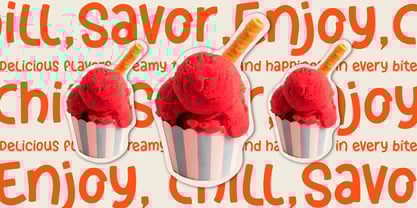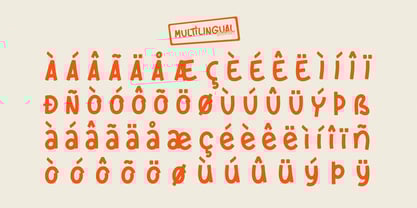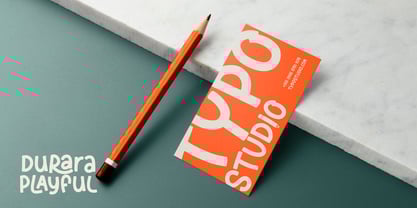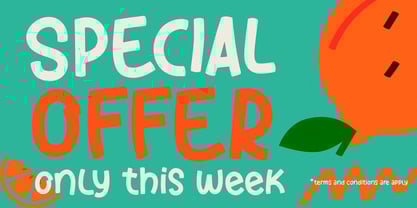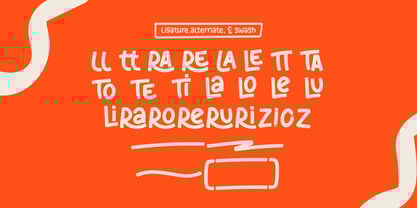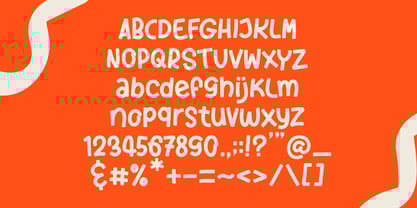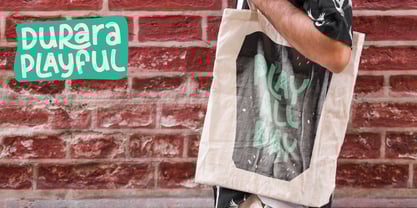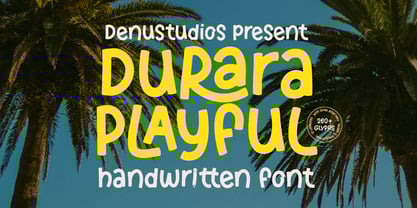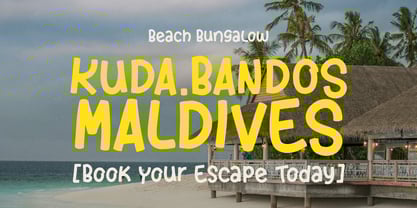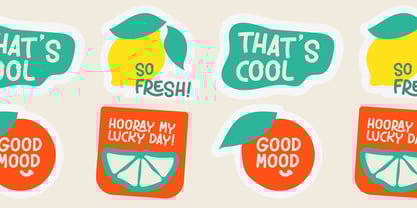
Durara Playful
por Denustudio
La familia tipográfica Durara Playful fue diseñada por Dede Nugraha y publicada por Denustudio. Durara Playful contiene 2 estilos y opciones de paquete familiar.
Durara Playful | Handwritten Font, from Denustudios, suitable for any projects such as: logos, branding projects, homeware designs, product packaging, mugs, quotes, posters, shopping bags, t-shirts, book covers, name card, invitation cards, greeting cards, label, photography, watermark, special events, and all your other lovely projects that need a Handwritten Font taste.
• Regular and Italic
• Standard glyphs
• Alternate and Ligature
• Fonts include multilingual support